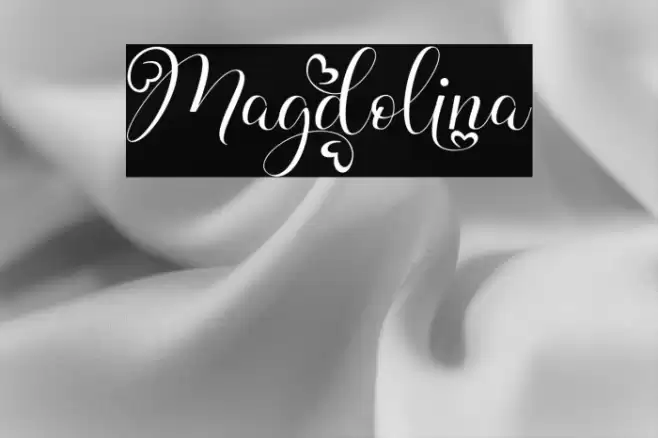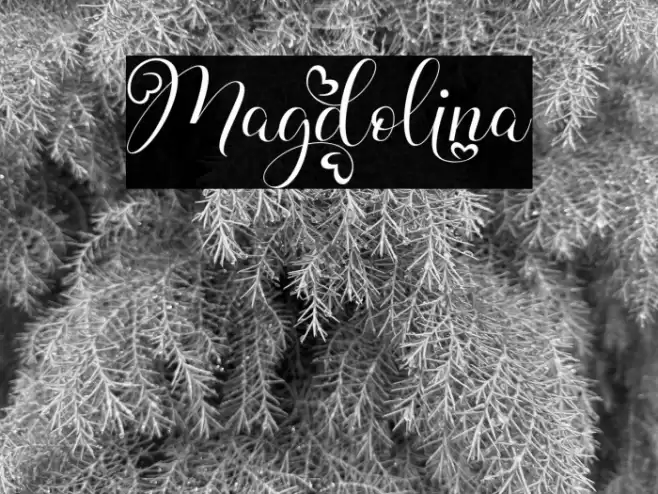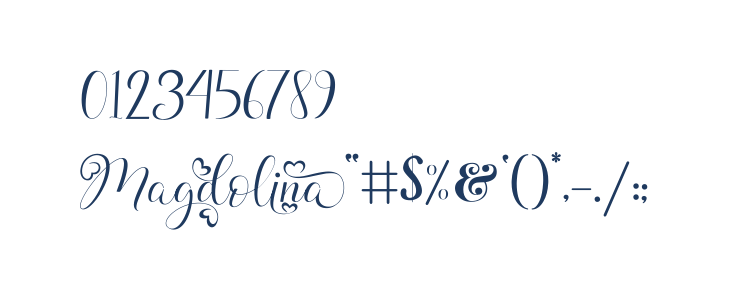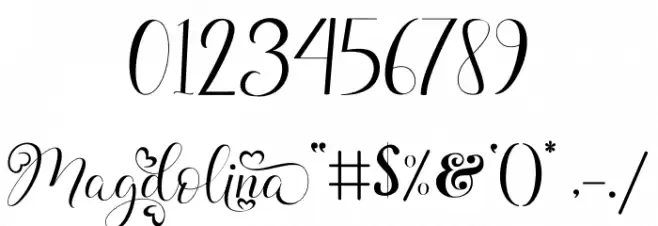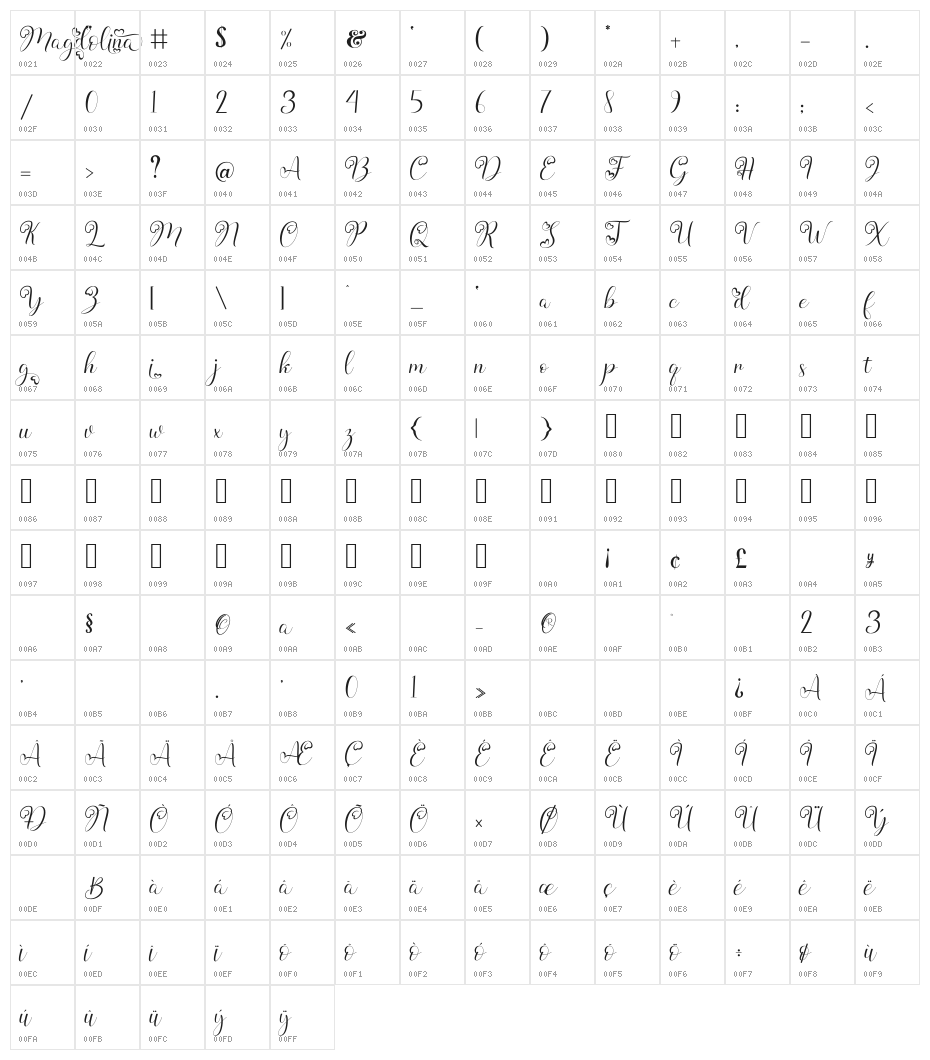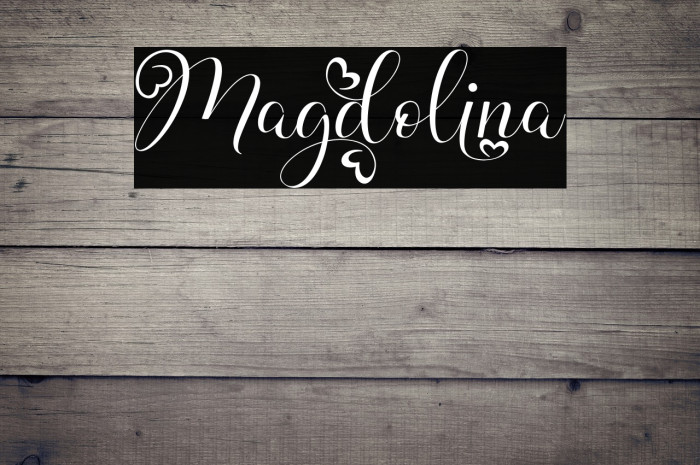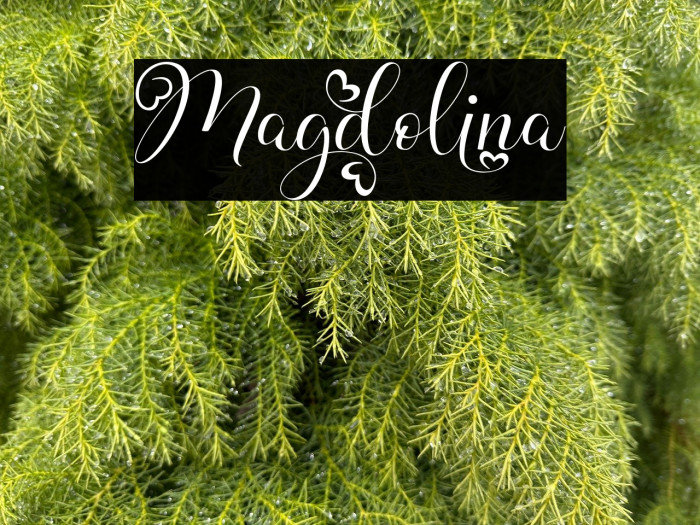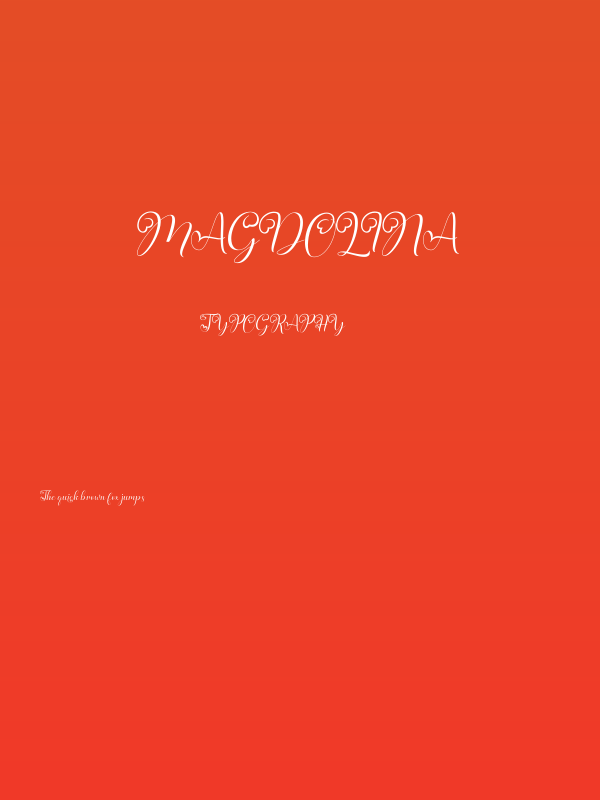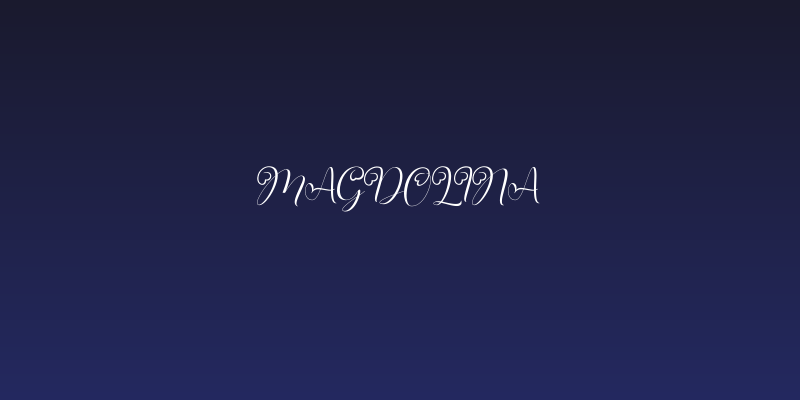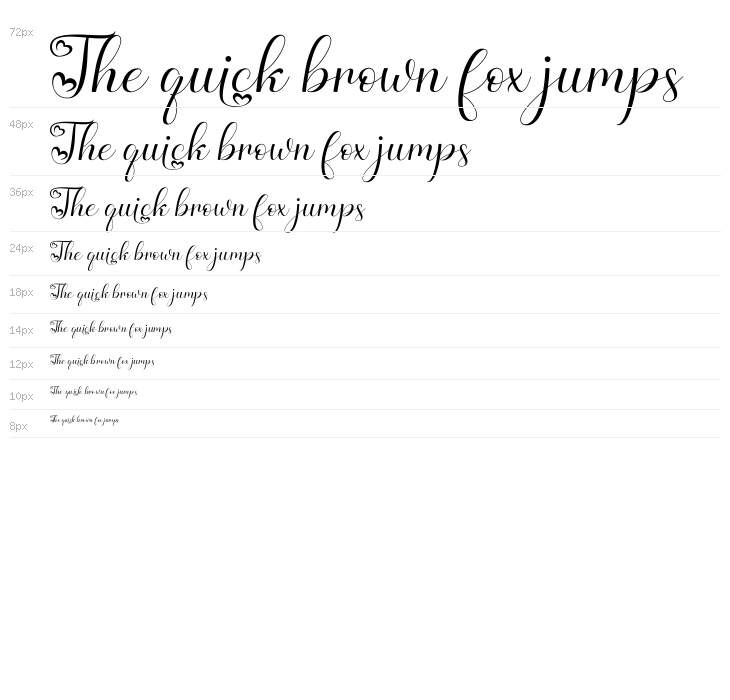
Magdolina Font
Magdolina Description
This elegant script font features a flowing, cursive style with intricate swashes and loops that give it a sophisticated and decorative appearance. The uppercase letters are adorned with elaborate flourishes, while the lowercase letters maintain a graceful continuity. The numerals are stylishly designed to match the overall aesthetic, and the special characters are equally ornate, adding to the font's versatility. The font's delicate strokes and high contrast between thick and thin lines enhance its refined look, making it ideal for formal and decorative applications.
An elegant script font with intricate swashes and high contrast, perfect for decorative use from Regular fonts.
- Proposed Projects: Wedding invitations, luxury branding, greeting cards, and elegant packaging.
- Use Case: Logos, Invitations, Decorative text